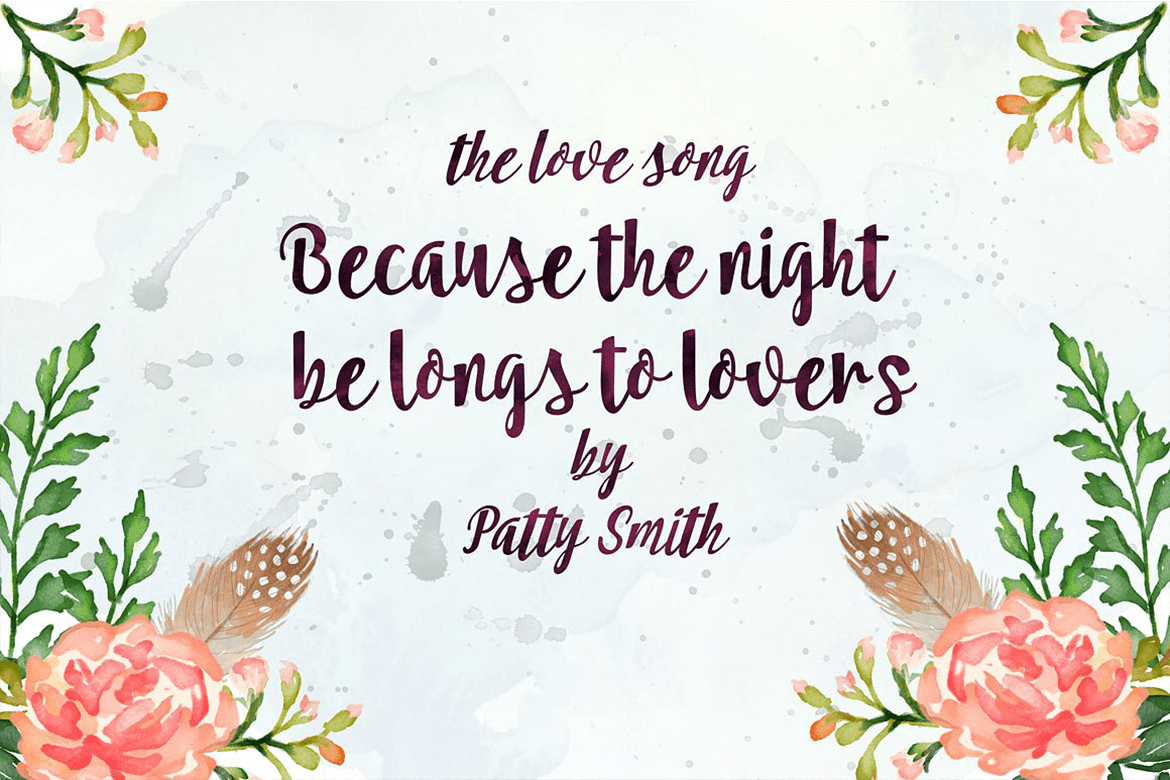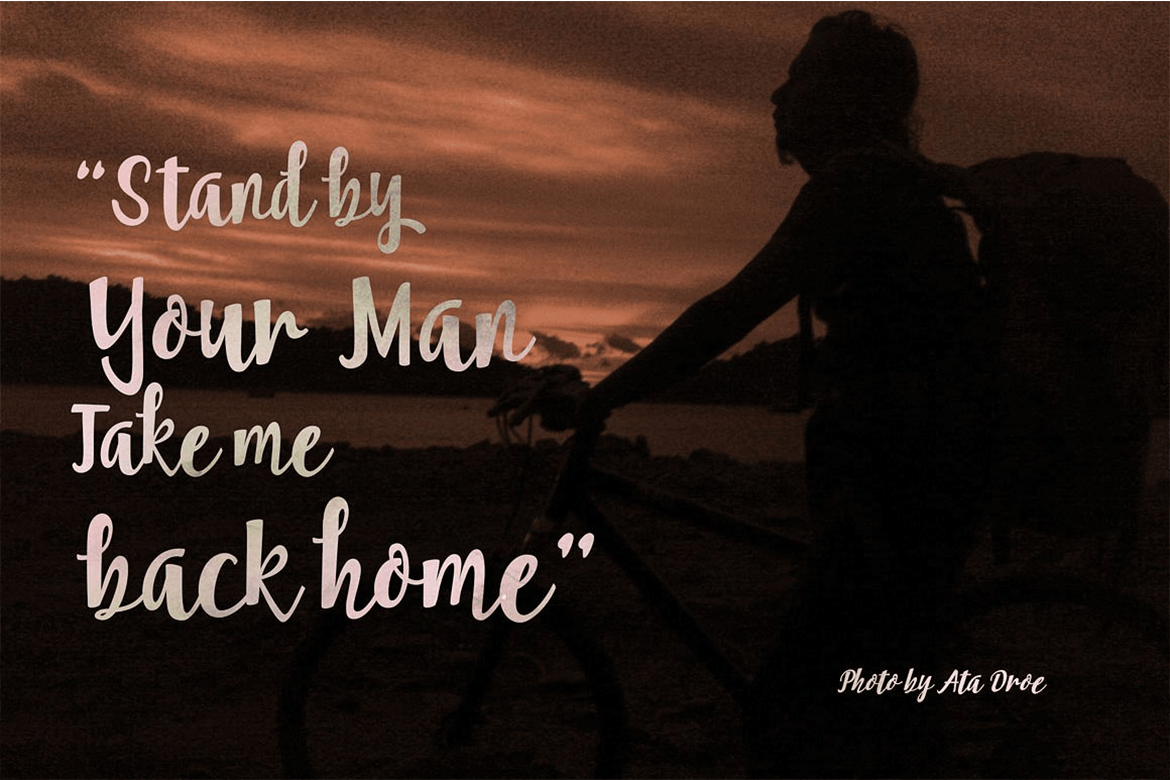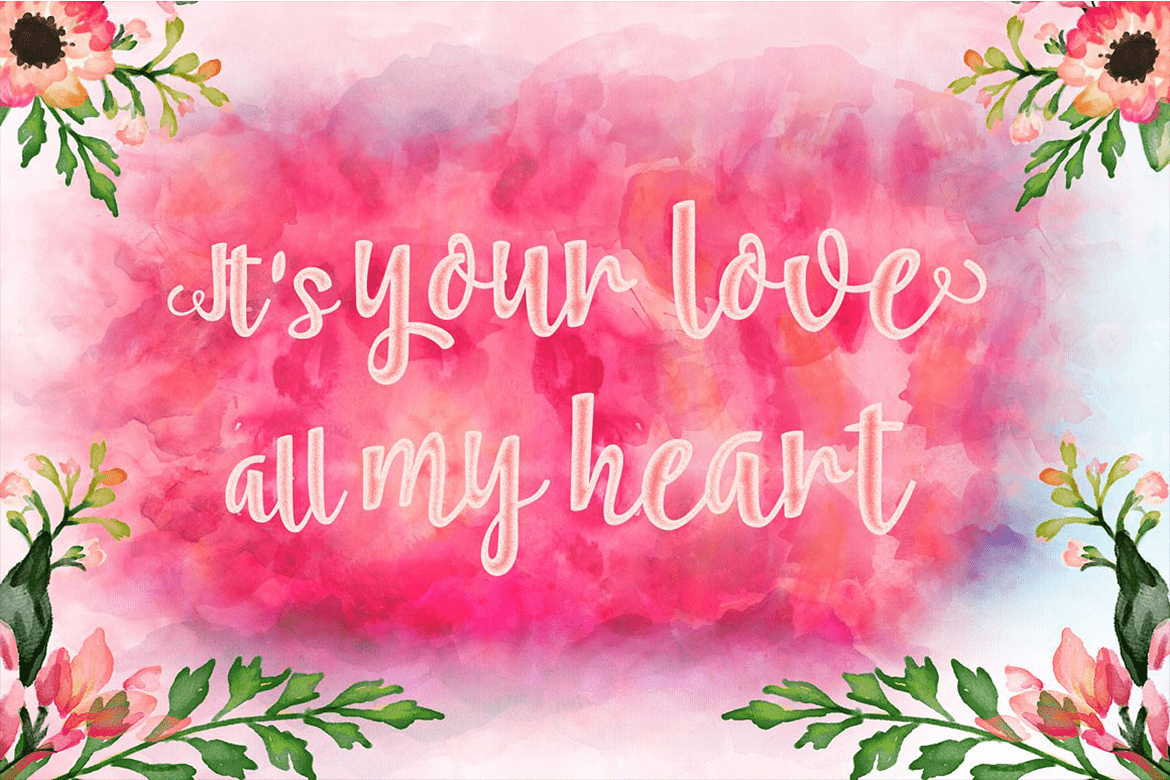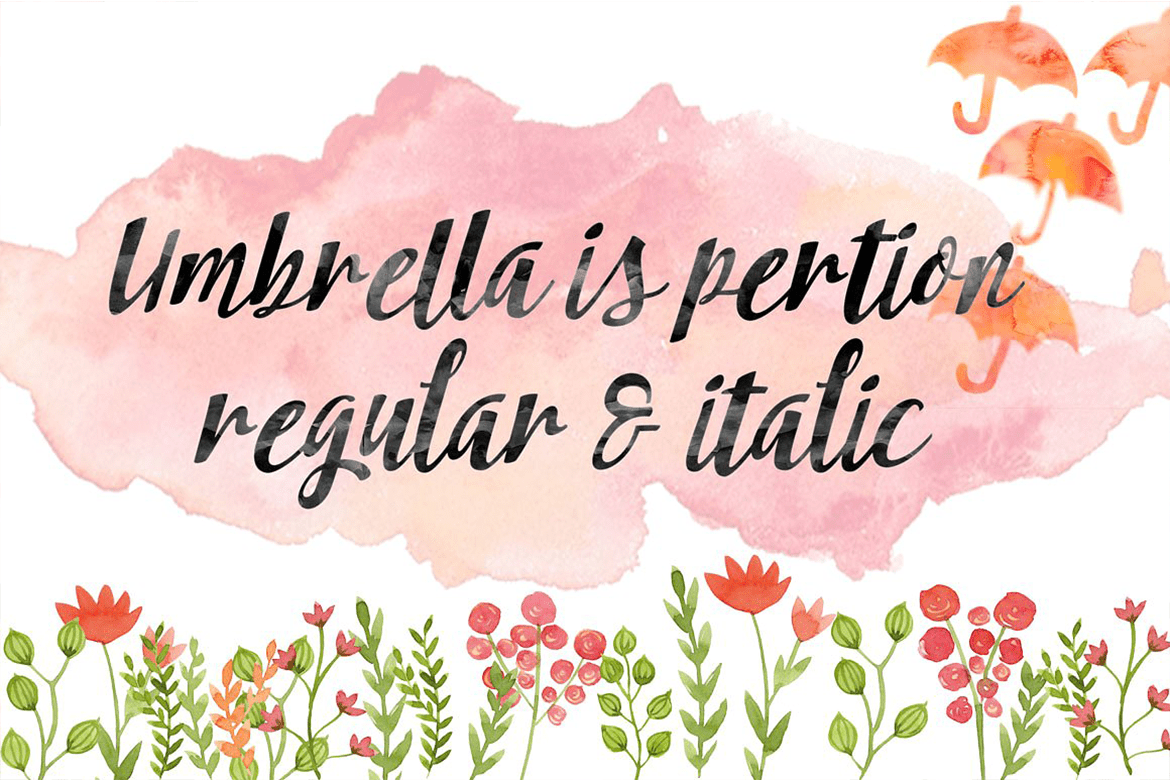
Umbrella
Umbrella is a brush script that is beautiful and unique, it is a model of modern calligraphy typefaces, in combination with a calligraphy brush writing style. The Features of this fonts is;
- Contextual swashes
- Contextual Alternates
- Discretionary ligatures
- Stylistic Alternates
- Stylistic sets
Can be used for various purposes.such as headings, signature, logos, wedding invitation, t-shirt, letterhead, signage, labels, news, posters, badges etc. To enable the OpenType Stylistic alternates, you need a program that supports OpenType features such as Adobe Illustrator CS, Adobe Indesign & CorelDraw X6-X7.